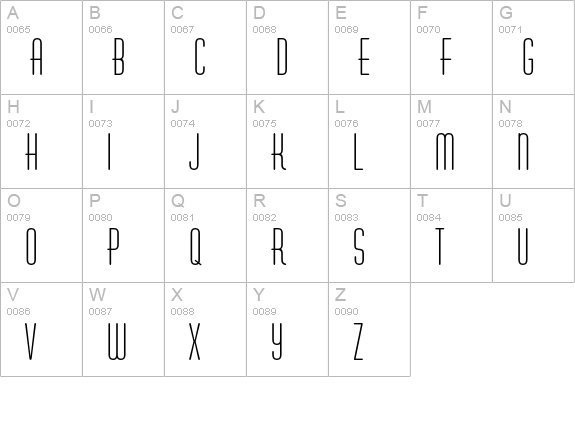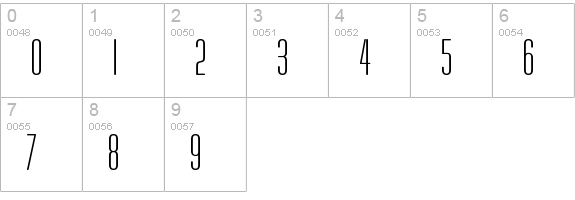
AT Aldous Vertical Font Details
Introducing AT Aldous Vertical font, a sleek and modern typeface designed for a sophisticated and elegant look. This unique font features tall and slender letterforms that exude a sense of luxury and professionalism. Perfect for adding a touch of refinement to any design project, AT Aldous Vertical font is sure to make a lasting impression. Best of all, AT Aldous Vertical font is available for free download at FontsMarket.com. Whether you're working on a branding project, website design, or any other creative endeavor, this font is a versatile choice that will elevate your work to the next level. Don't miss out on the opportunity to enhance your designs with this stunning typeface – download AT Aldous Vertical font today!